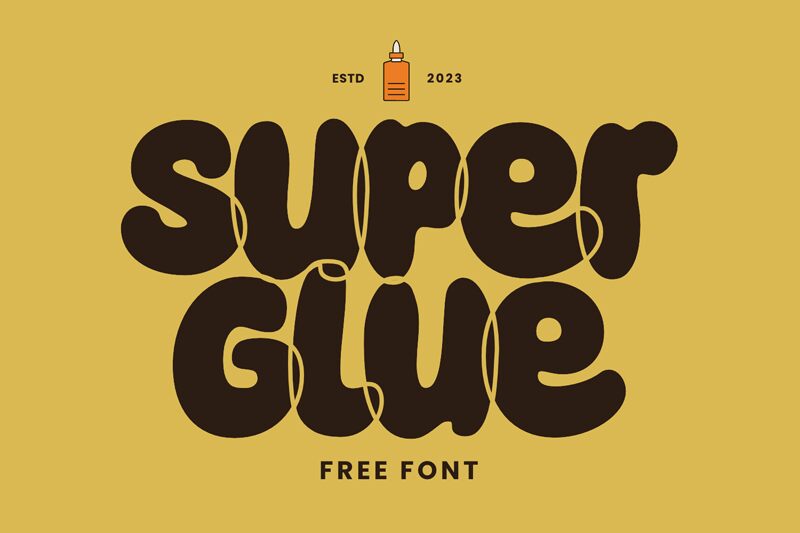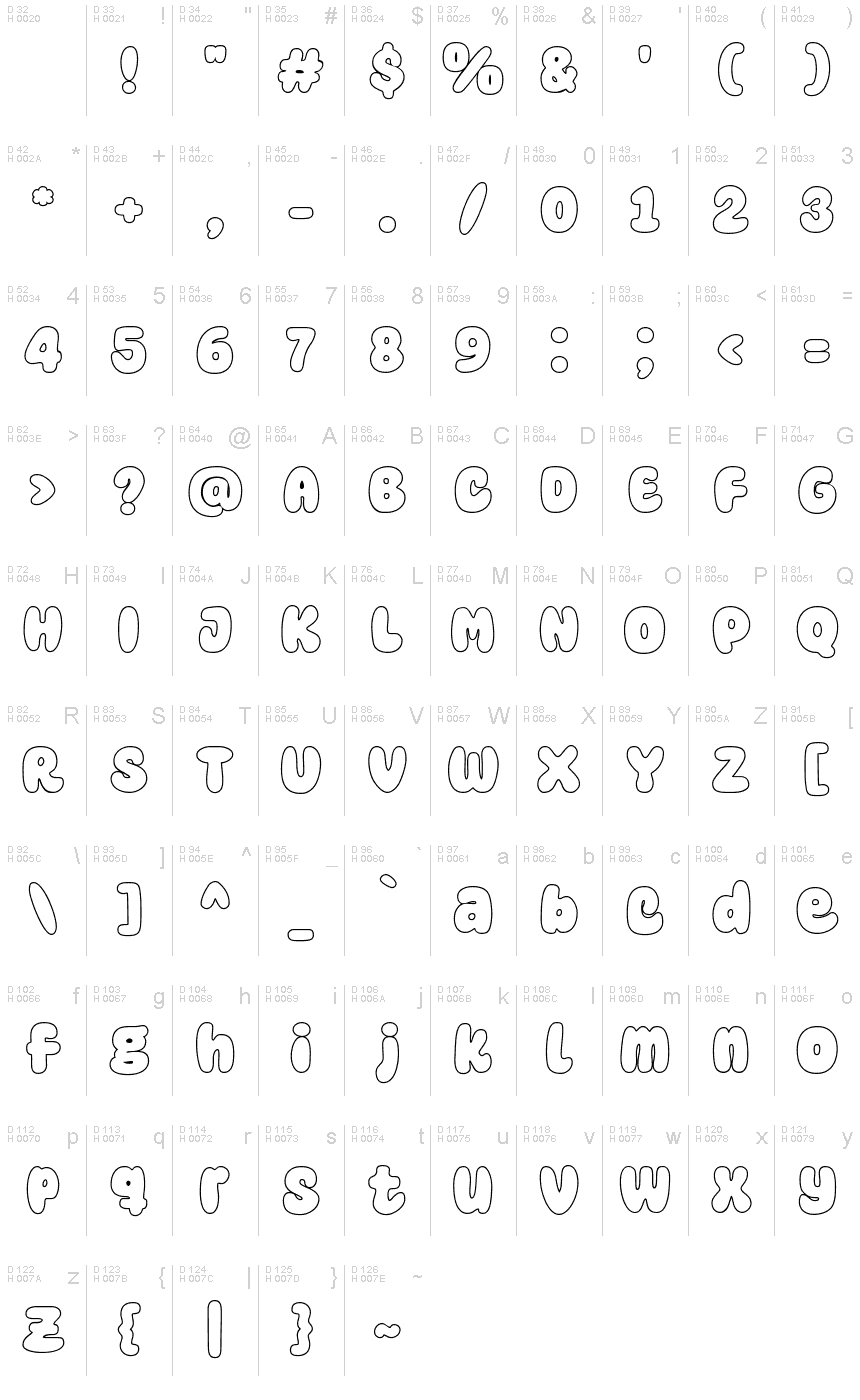
Super Glue Outline
Super Glue Outline is an extraordinary display font designed by fsuarez913. With its cartoon-inspired style and extra-bold weight, this font injects a playful and lively touch to any project. Its smooth outlines make it perfect for logos, children's books, comic strips, and animated videos. The unique combination of fun and boldness makes Super Glue Outline an ideal choice for branding projects that require a distinctive and memorable look. Embrace the charm of this font to bring your designs to life with a touch of whimsy!